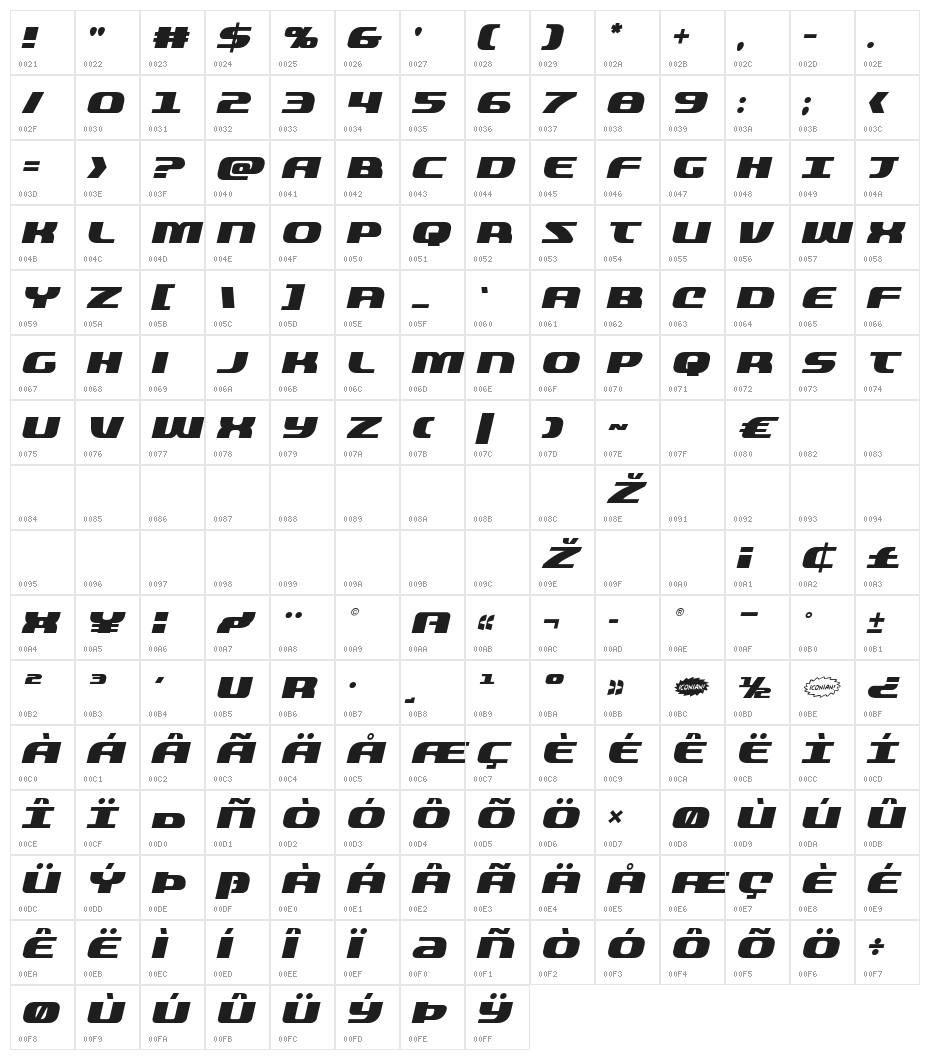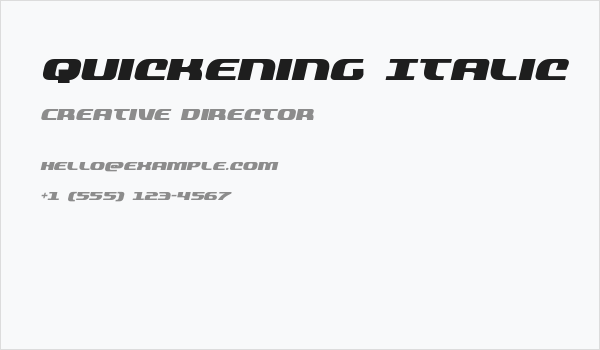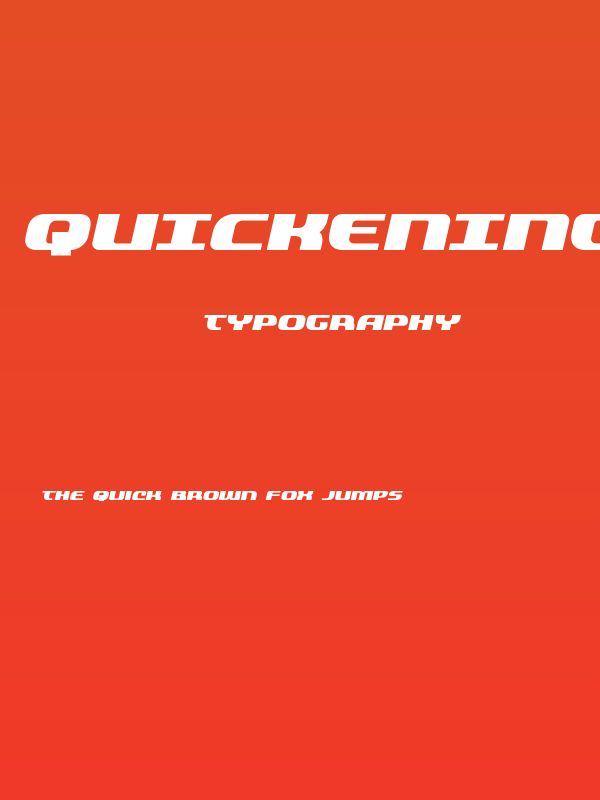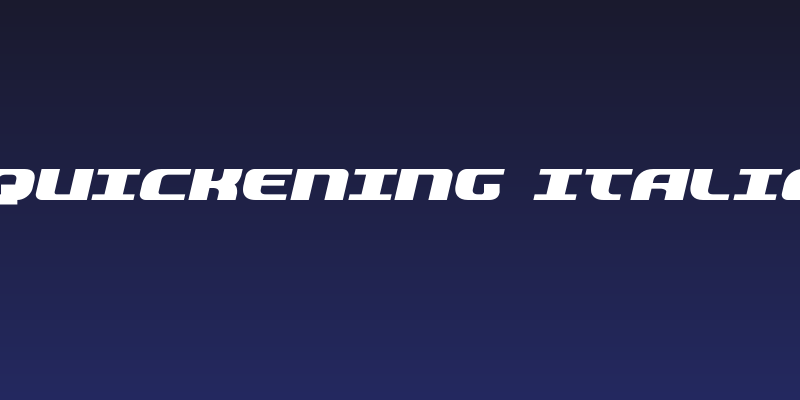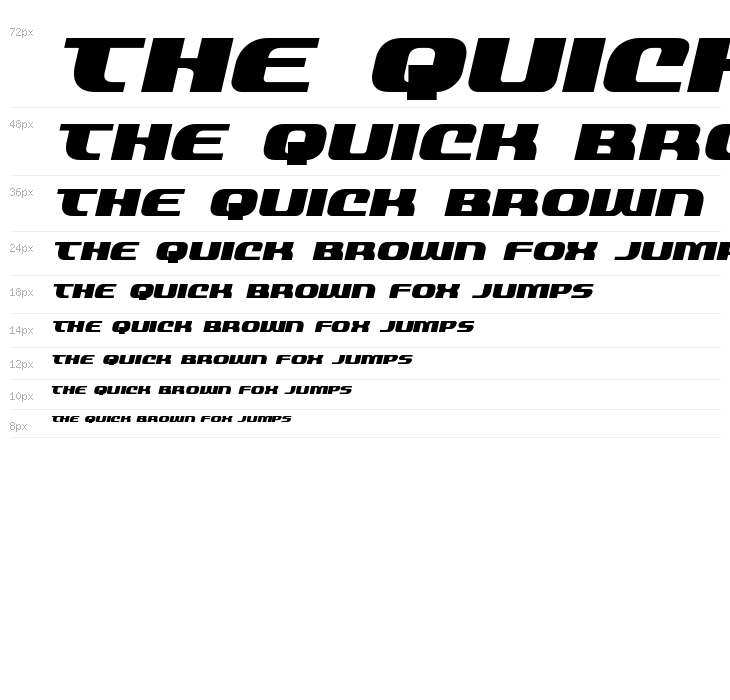
Quickening Italic Font
Quickening Italic Description
This font features a bold, italicized style with a strong, dynamic presence. The characters are designed with a forward slant, giving a sense of motion and speed. The strokes are thick and consistent, providing a robust and impactful appearance. The uppercase and lowercase letters maintain a uniform width, contributing to a cohesive look. The numbers and special characters are crafted with the same boldness, ensuring readability and emphasis. The overall design is modern and sleek, suitable for projects that require a sense of urgency or energy.
| Proposed Projects | Ideal for sports branding, dynamic advertisements, and modern digital interfaces. |